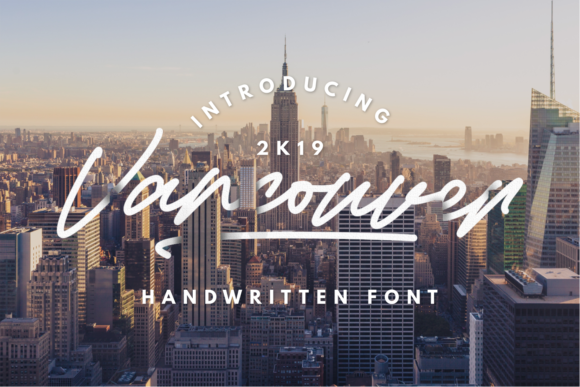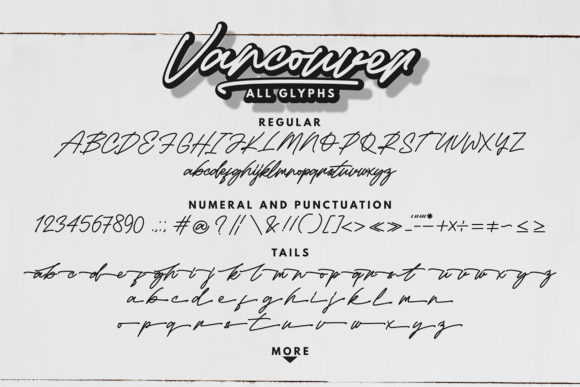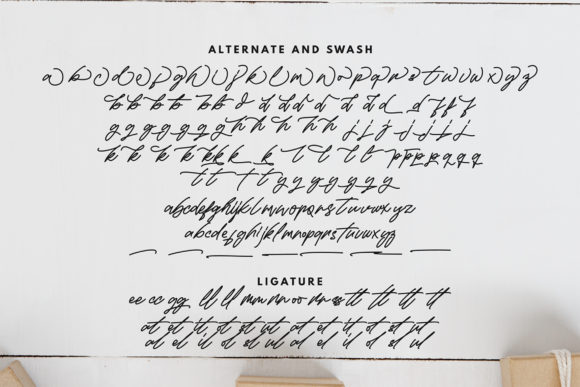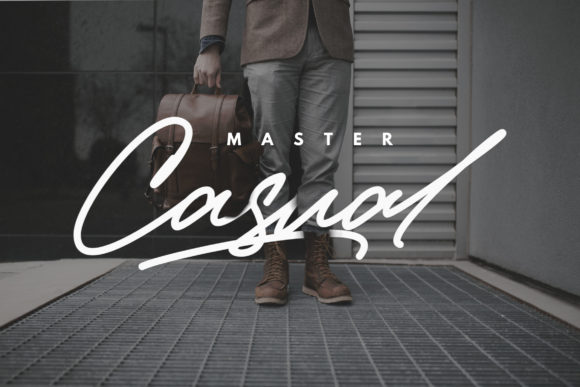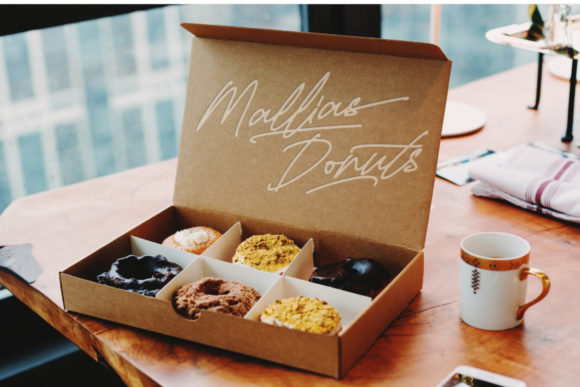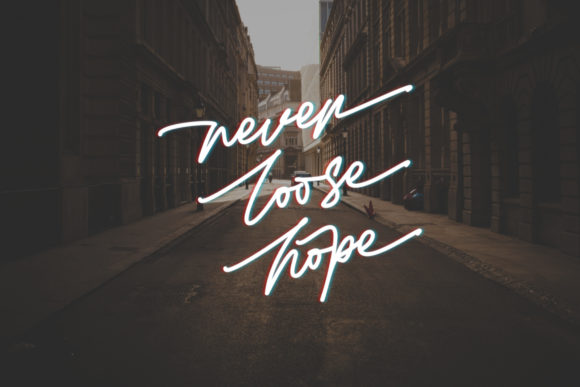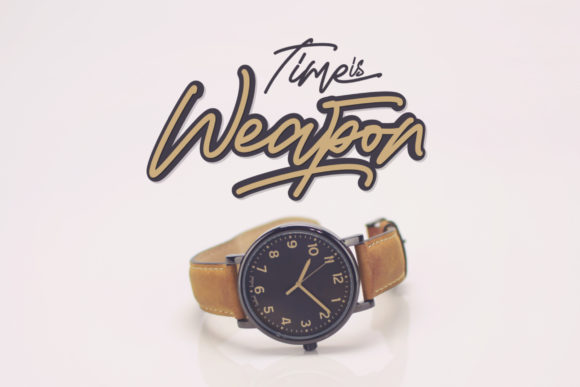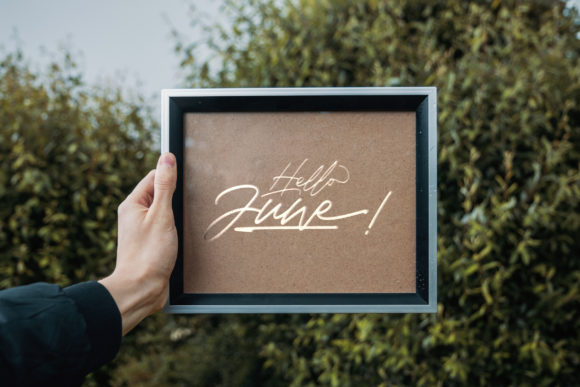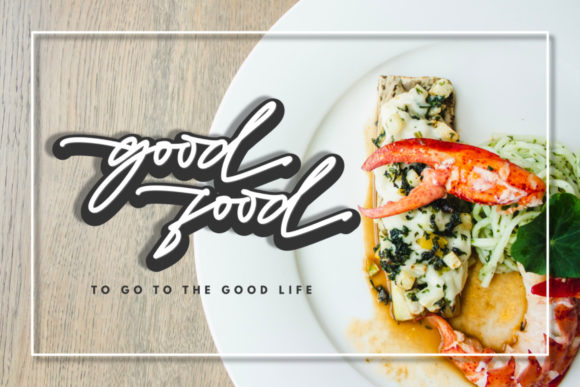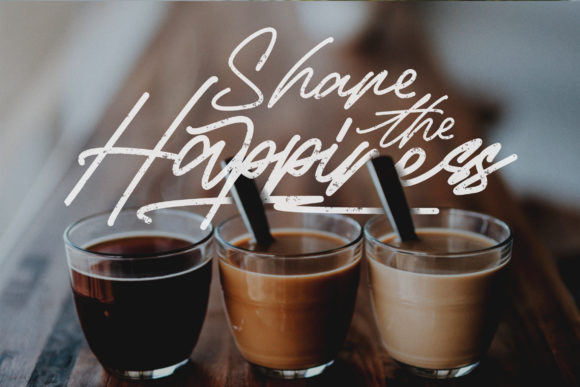
Vancouver Font
About Vancouver Font
Vancouver is a script font made by hand, inspired by classic posters. Fall in love with its friendly & casual appearance!